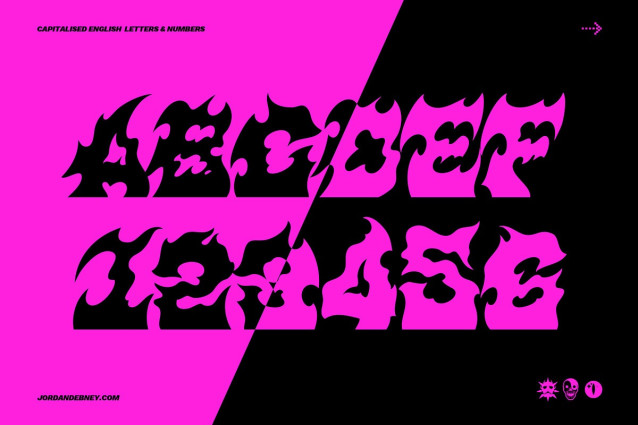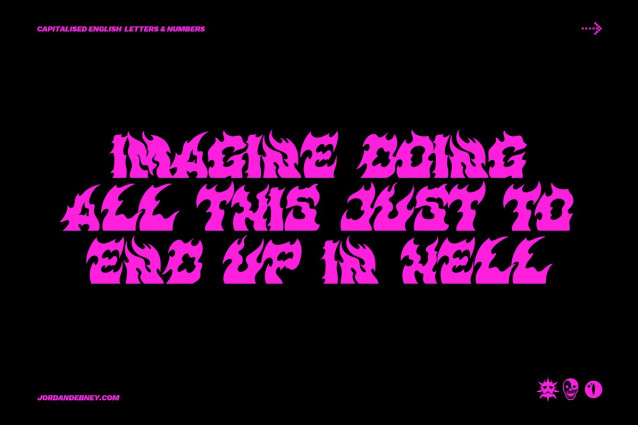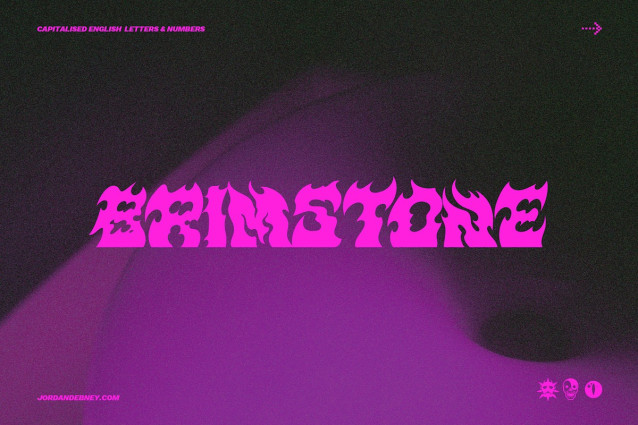
JD Brimstone Basic Font
JD Brimstone Basic Font, Inspired By Brutalism, Stone Forced In Fire Cut Straight From The Deep Deep Quarry. Echoes Of Screams Filling The Dust Filled Air, A Self Feeding Fire Surrounds Brimming With Suffocating Heat. Pillars Of Stone Being Hacked Away, Carried On The Backs Of A Billion Souls Trailing Toward What Could Resemble That Of An Underworld Empire. Brimstone.